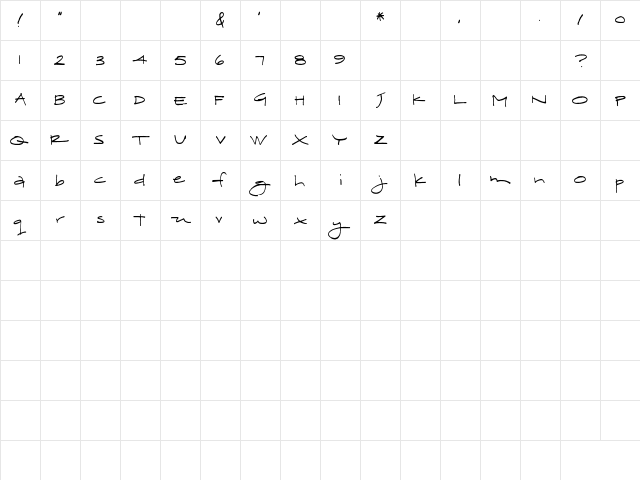
Hobbes Regular
Design Context for Hobbes Typeface
Hobbes is a composed and adaptable typeface that performs quietly and consistently across a wide range of design contexts.